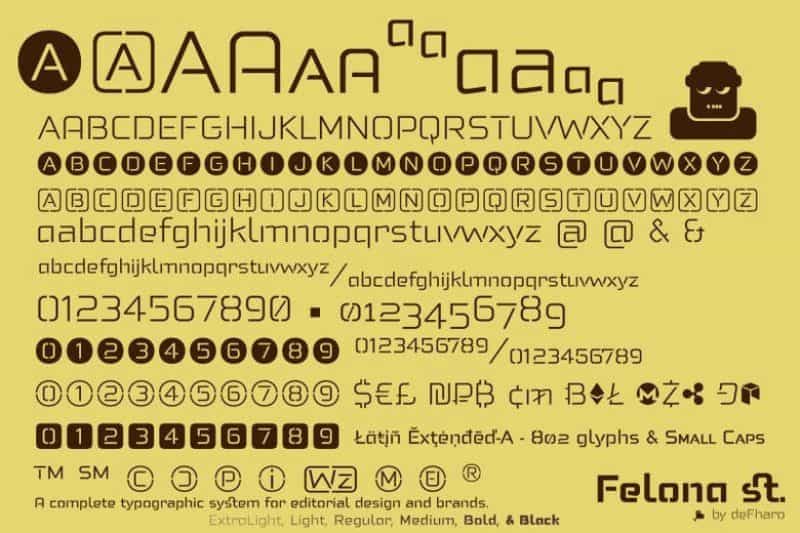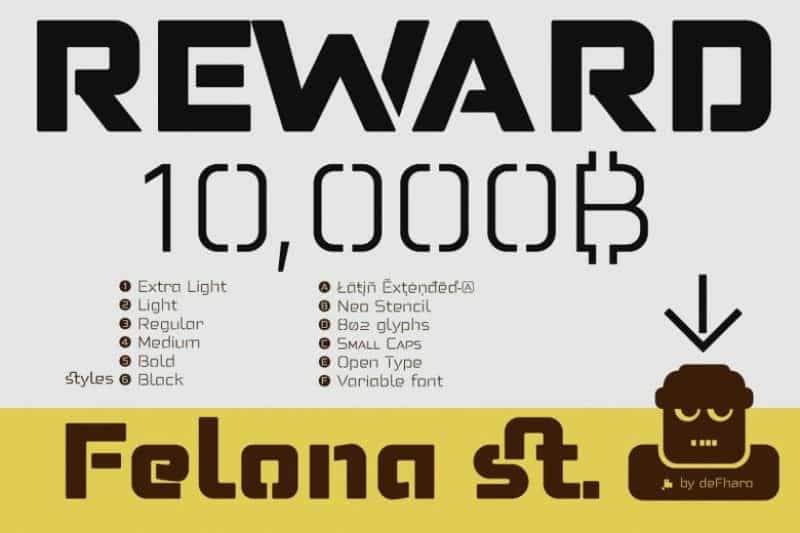
Felona st is designed in the technological style typography with rounded shapes of a minimalist design, and the case of Felona has been very careful about creating other originals while avoiding superfluous cuts when turning it into a font.